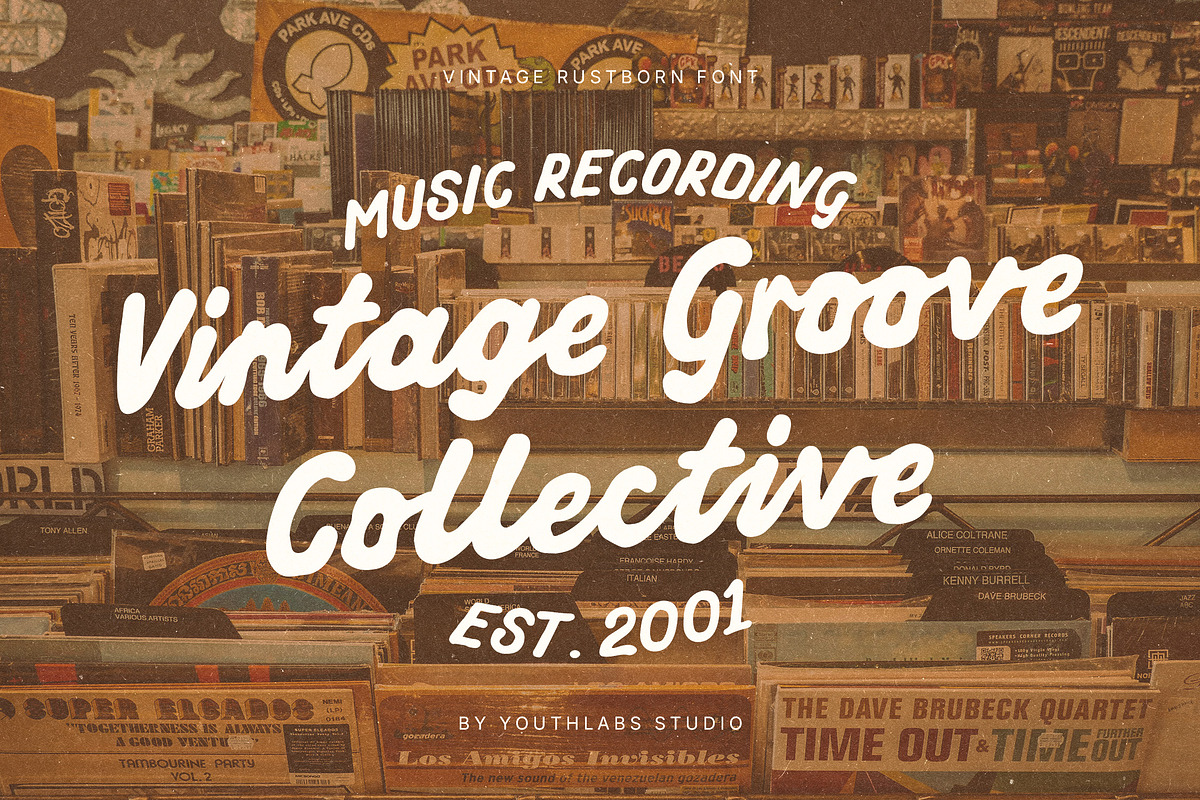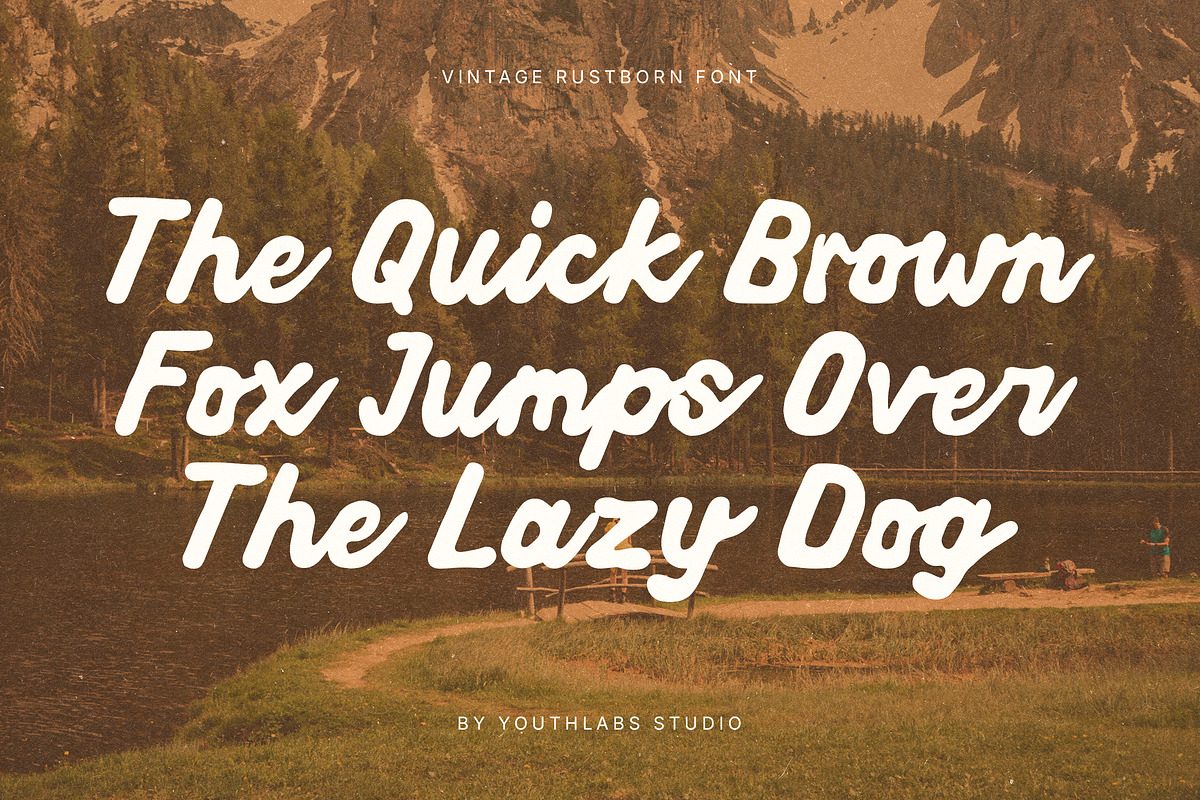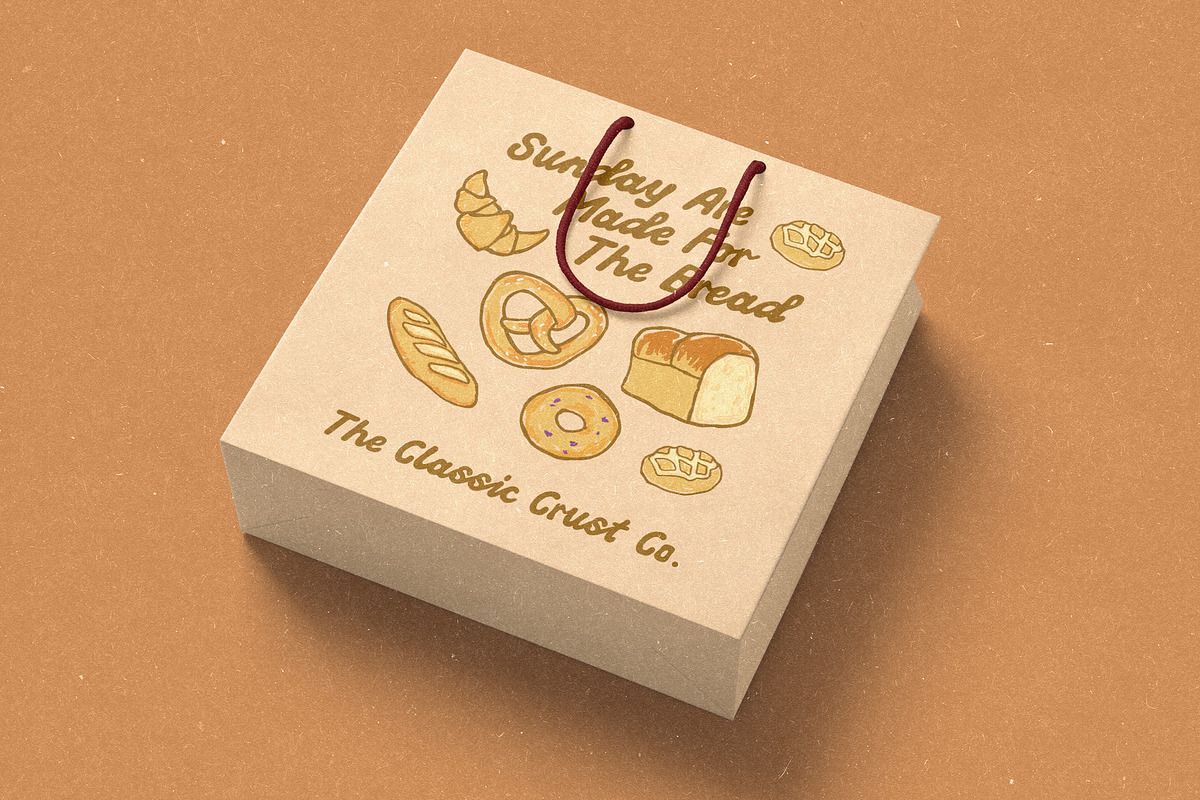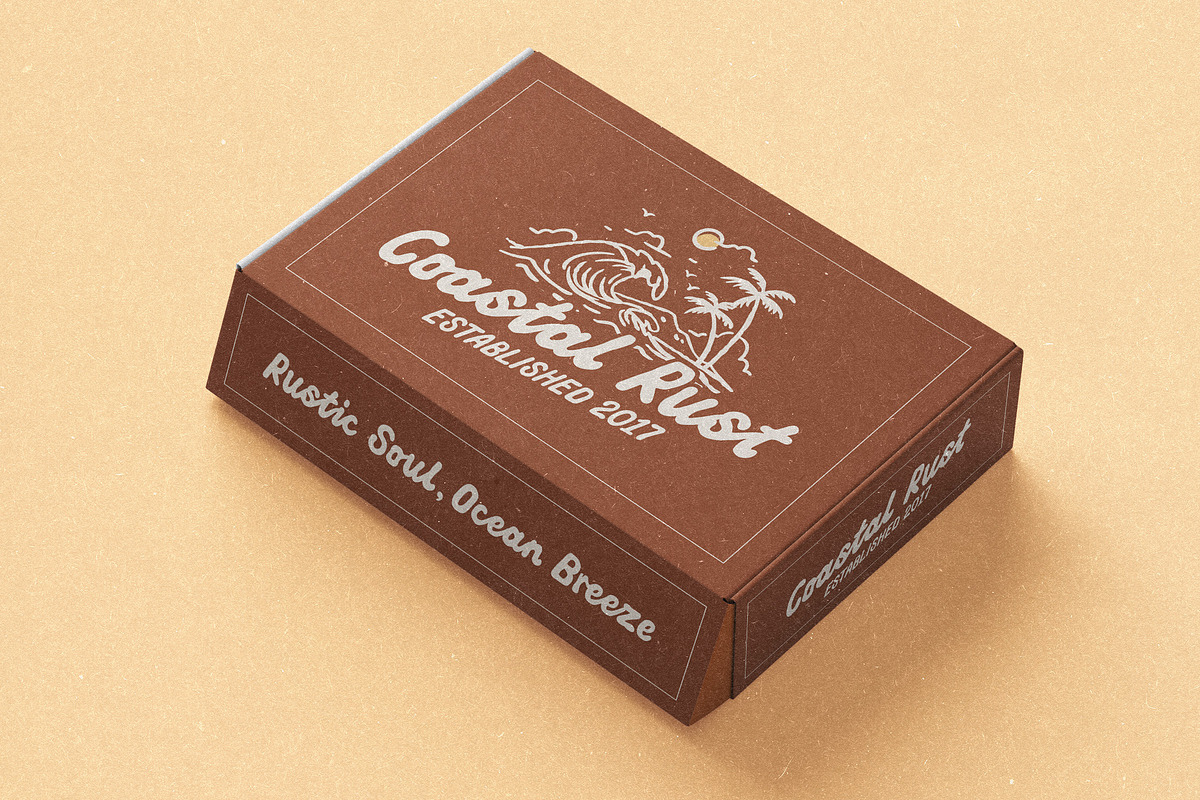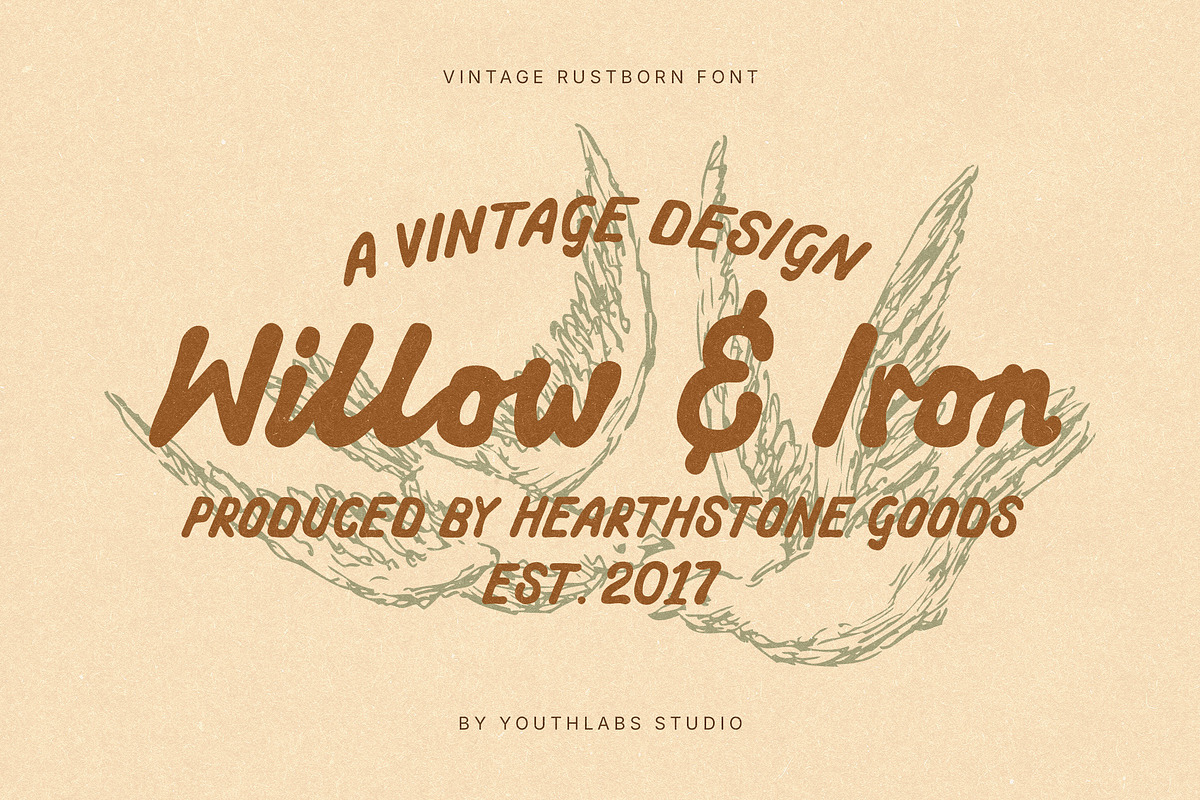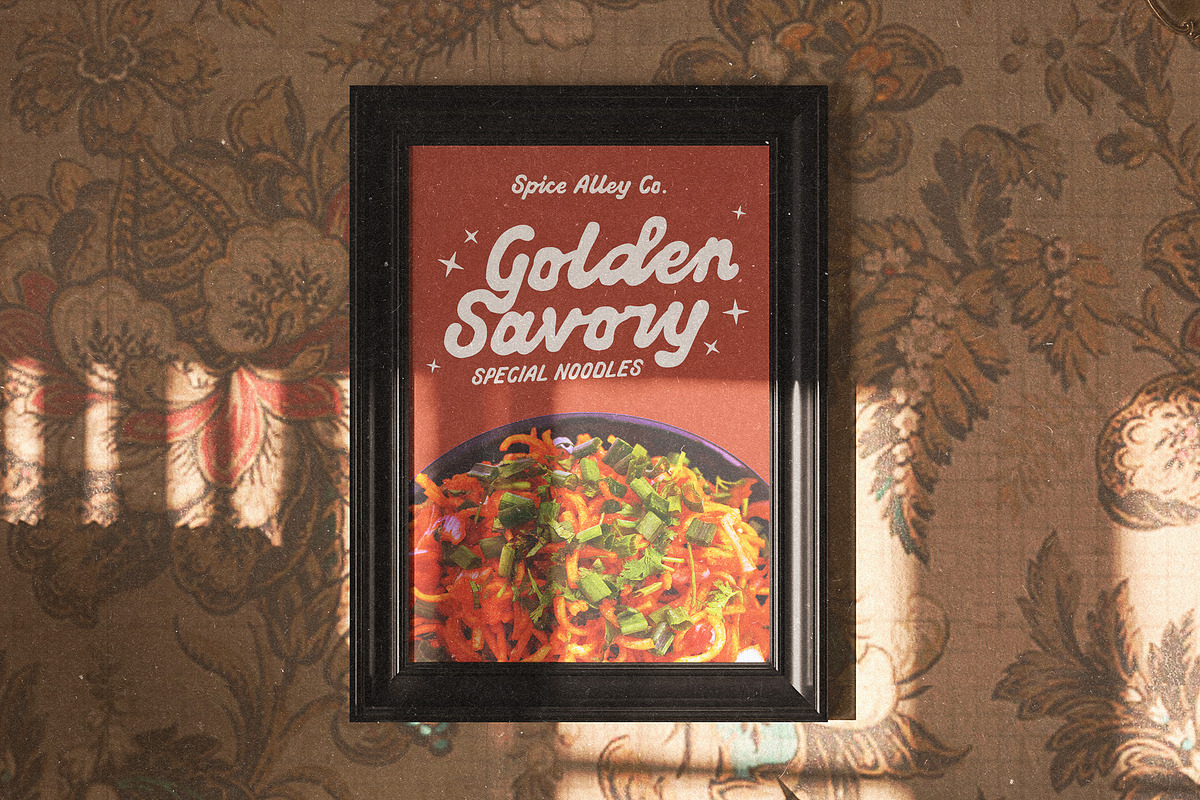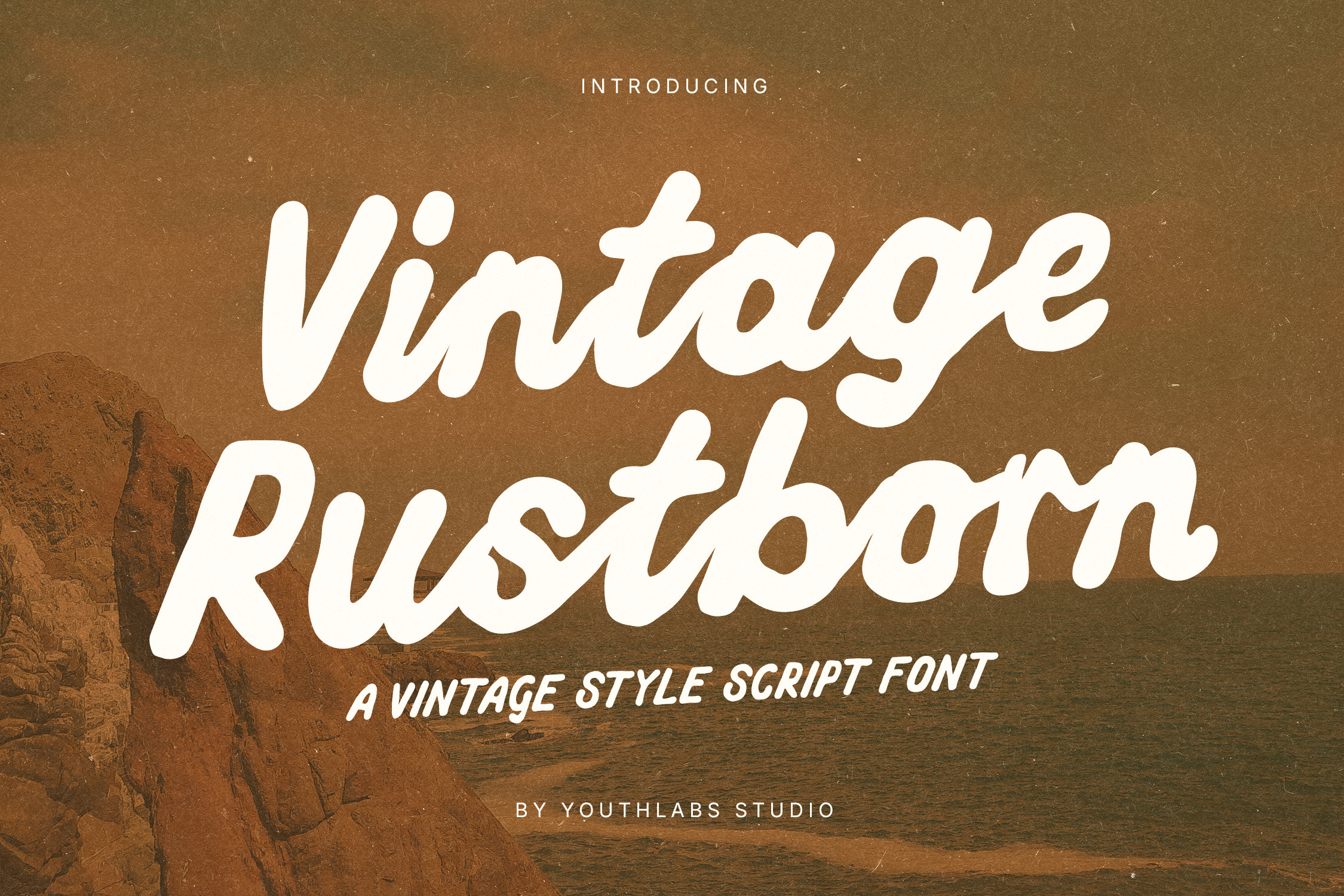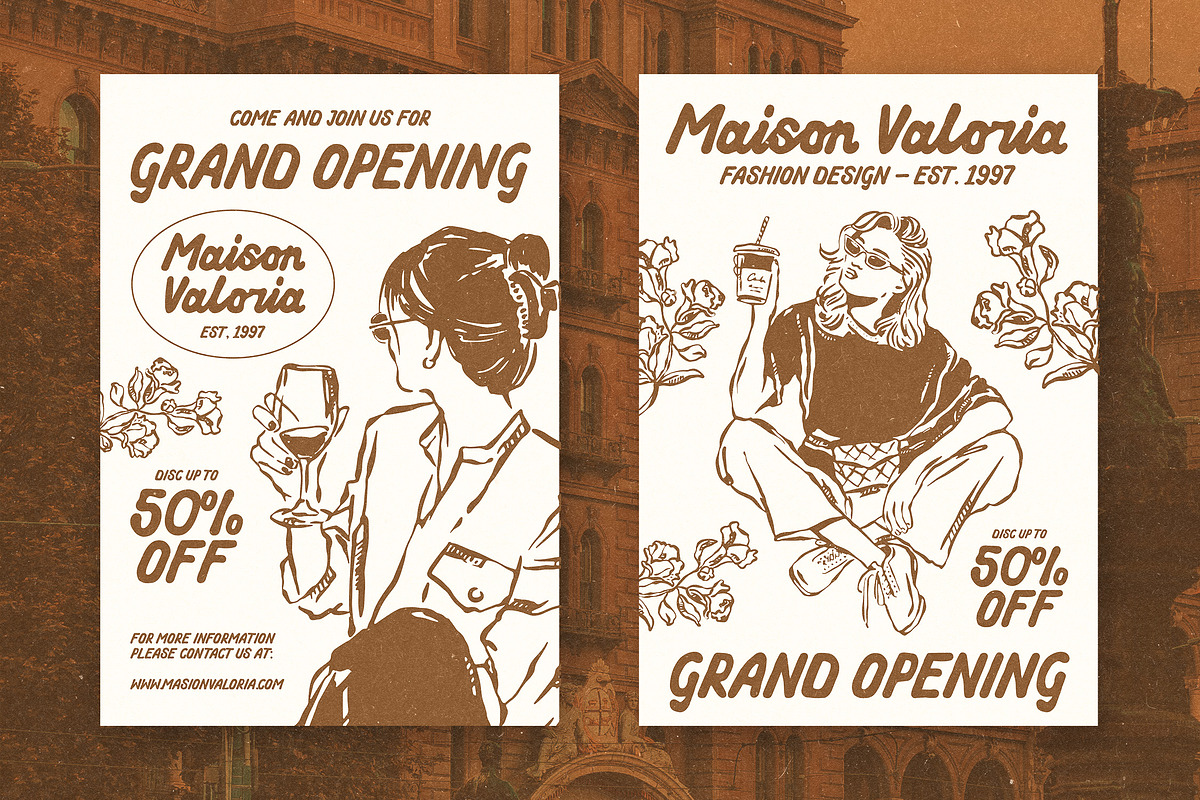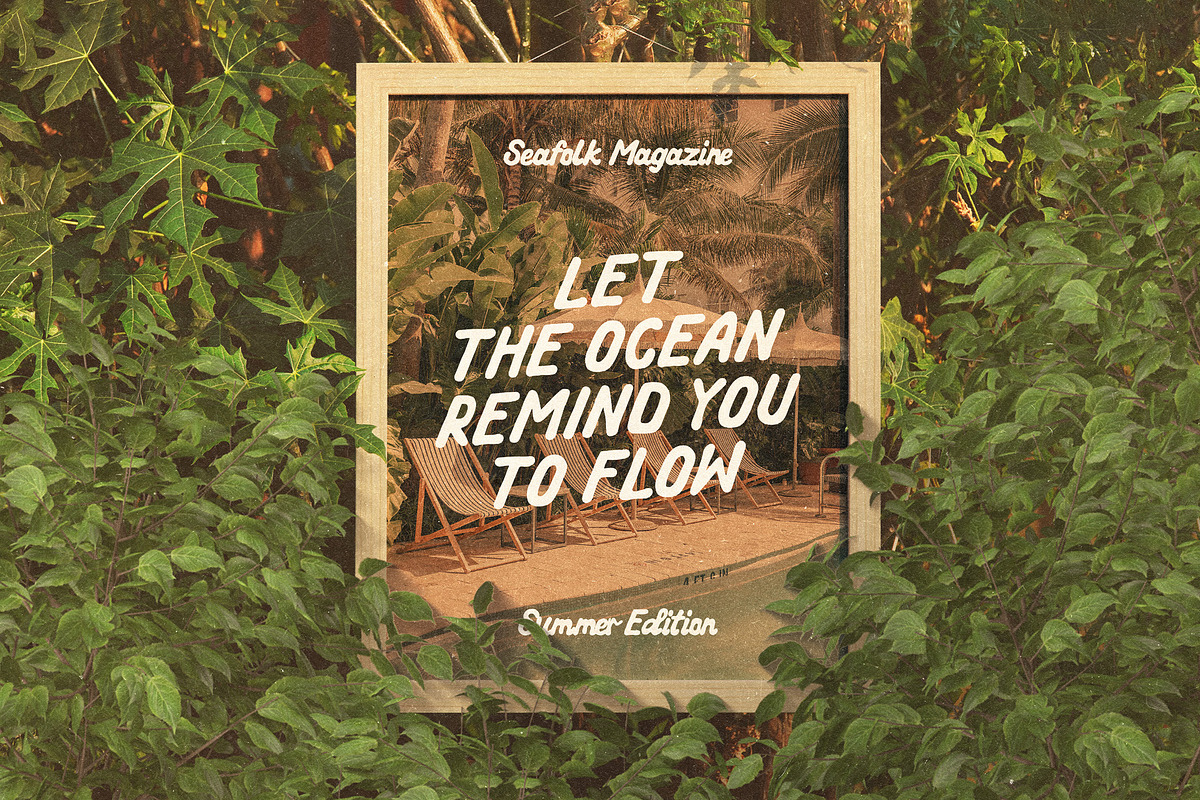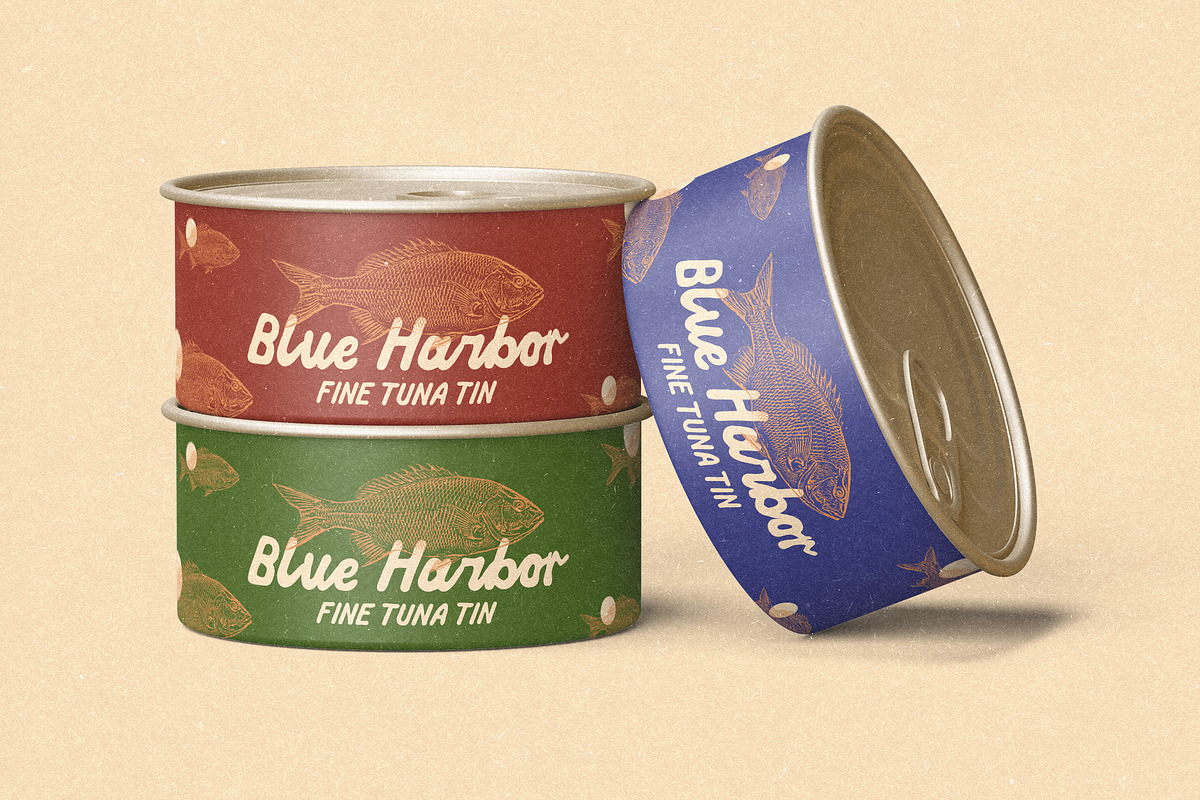
Vintage Rustborn – Retro Script Font
Vintage Rustborn is a bold retro script font inspired by 60s–70s signage, warm coastal aesthetics, and nostalgic handwritten brush lettering. With smooth curves and thick strokes, it brings an authentic vintage feel perfect for branding, posters, merchandise, and retro-themed creative projects. Its clean yet textured charm makes it ideal for logos, travel graphics, outdoor lifestyle designs, editorial titles, and anything that seeks a warm, timeless vintage personality.
- Authentic vintage script style
- Bold, smooth, and rounded strokes
- Retro coastal-inspired aesthetic
- Uppercase & lowercase characters
- Punctuation & multilingual support
- Great for logos, posters, packaging & apparel
- Perfect for retro branding and nostalgic moods